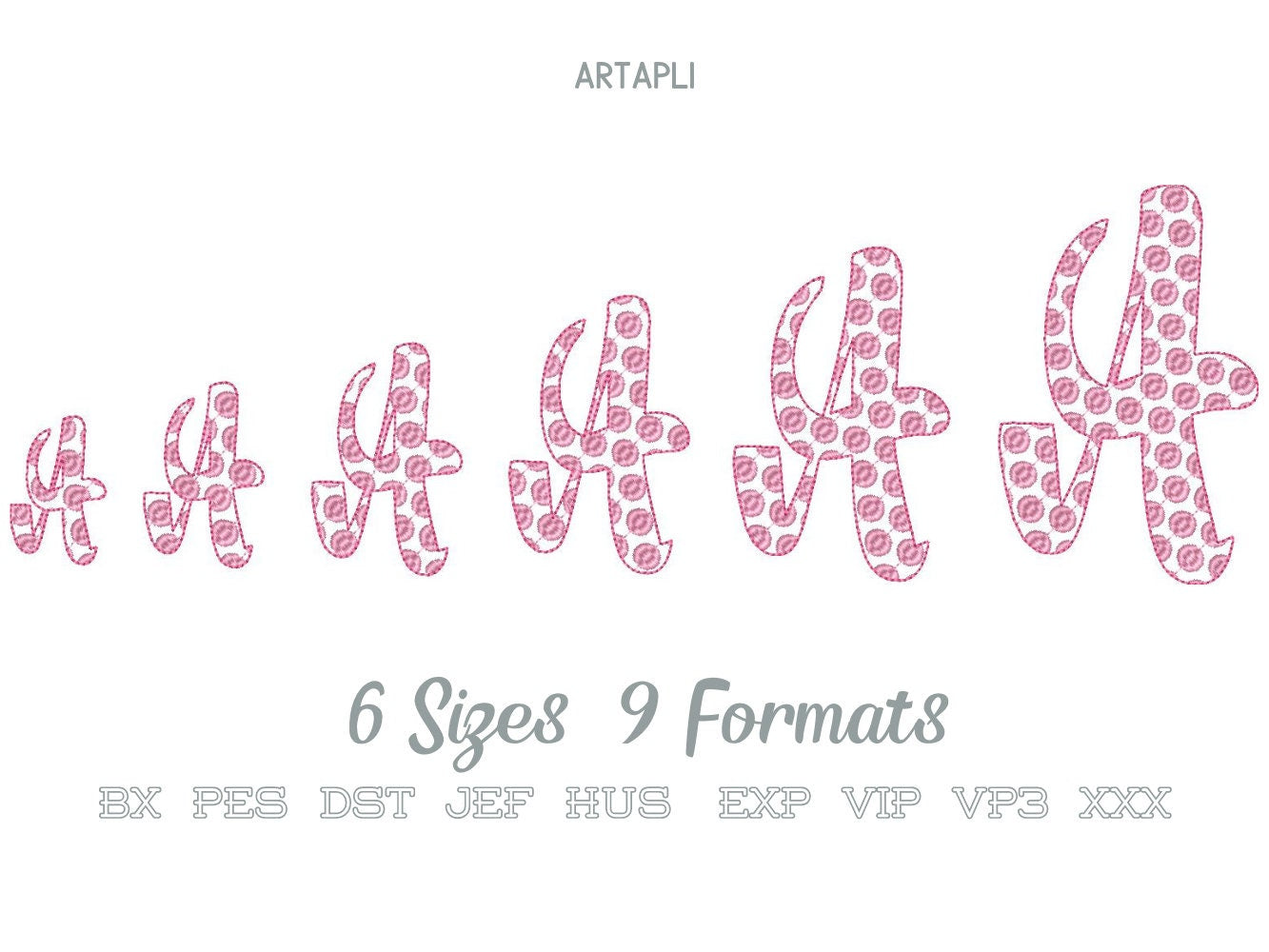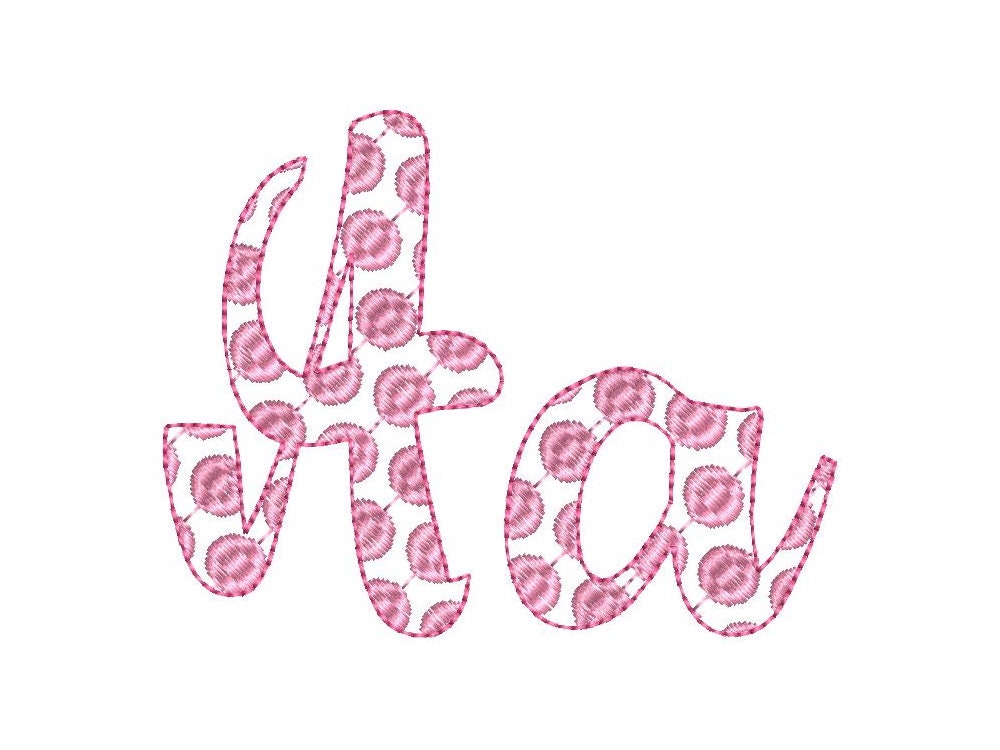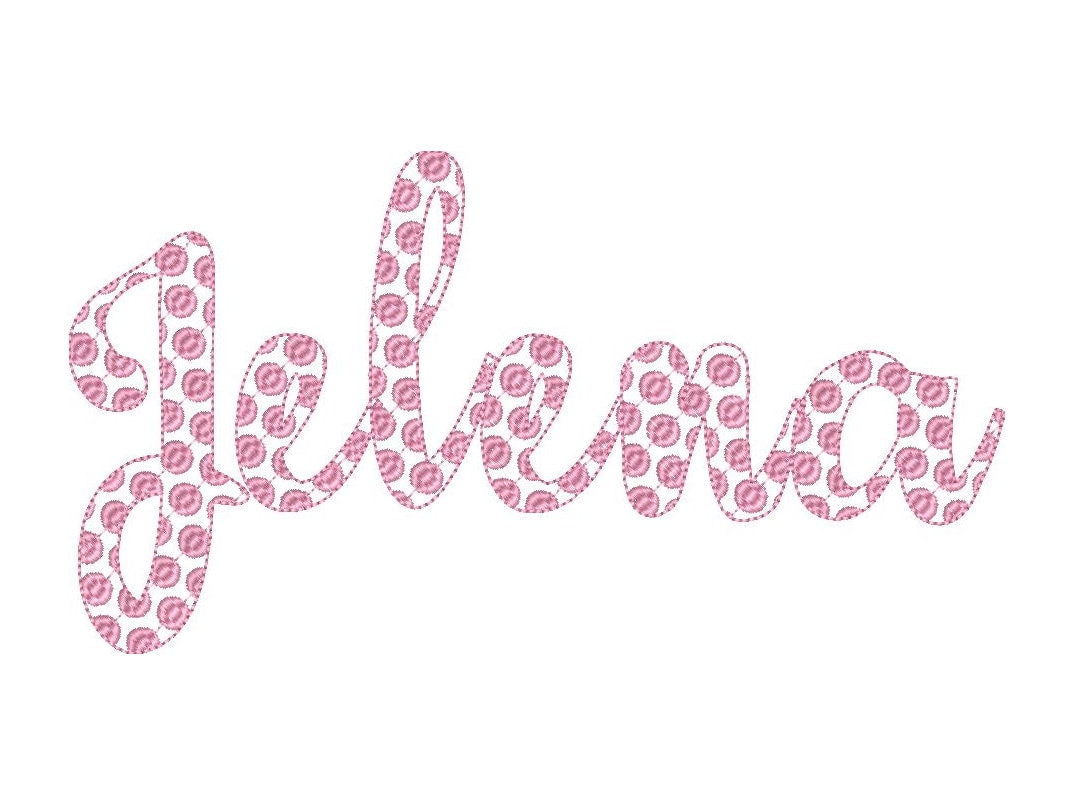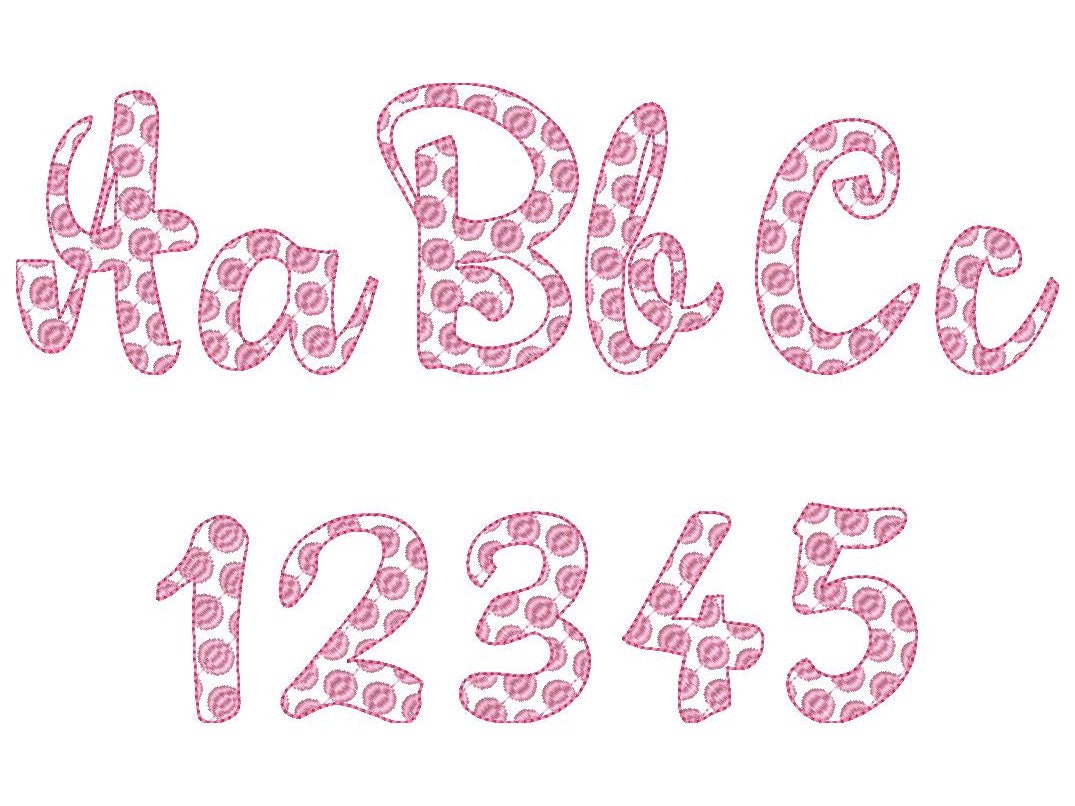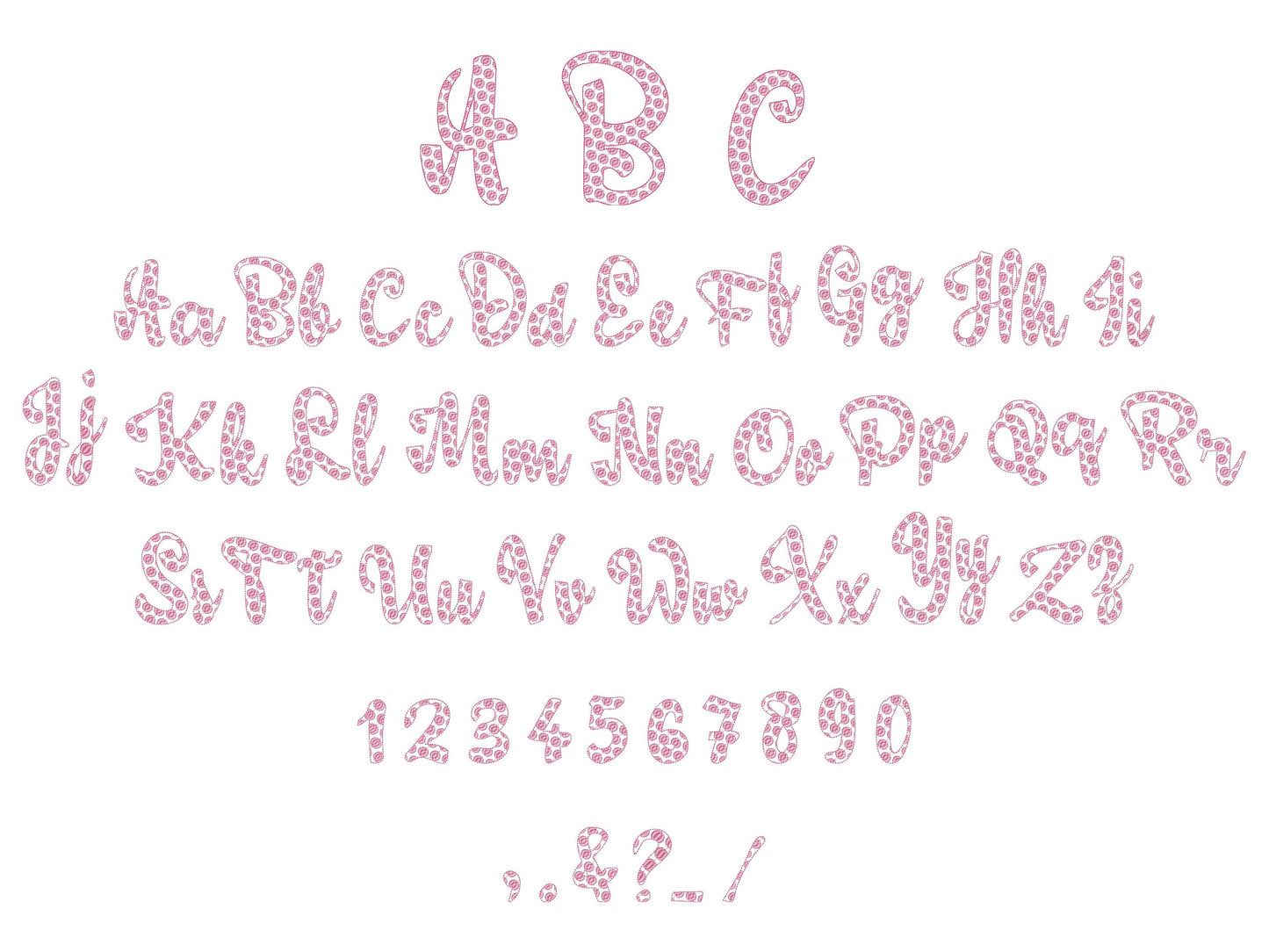
Polka Dot Font Jelena
Or click to open the linkA two-color polka dot script font. Fun for kids' names, girls' clothes, bags and party outfits.
The letters come in six sizes: 1.8, 2.3, 2.9, 3.5, 4.2 and 5 inches. Transparent letters with fill stitch polka dots and a light bean stitch outline. Includes uppercase and lowercase letters A to Z, numbers 0 to 9 and punctuation.
- 2-color polka dot script font
- 6 sizes, 1.8 to 5 in